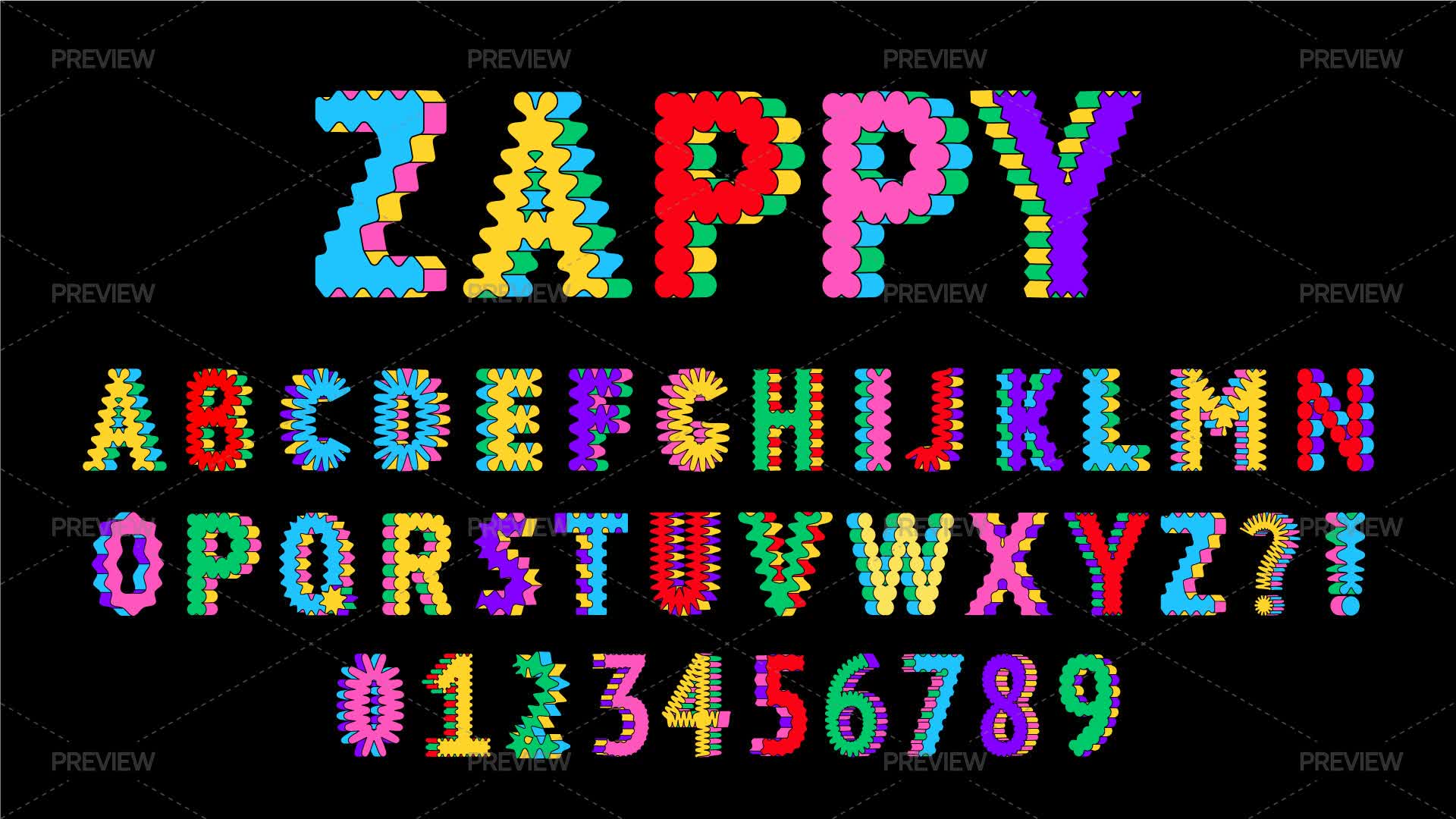
38 colorful, bold, wavy decorative typeface elements in a flat cartoon style. Including uppercase letters, numbers, question marks, and exclamation marks.